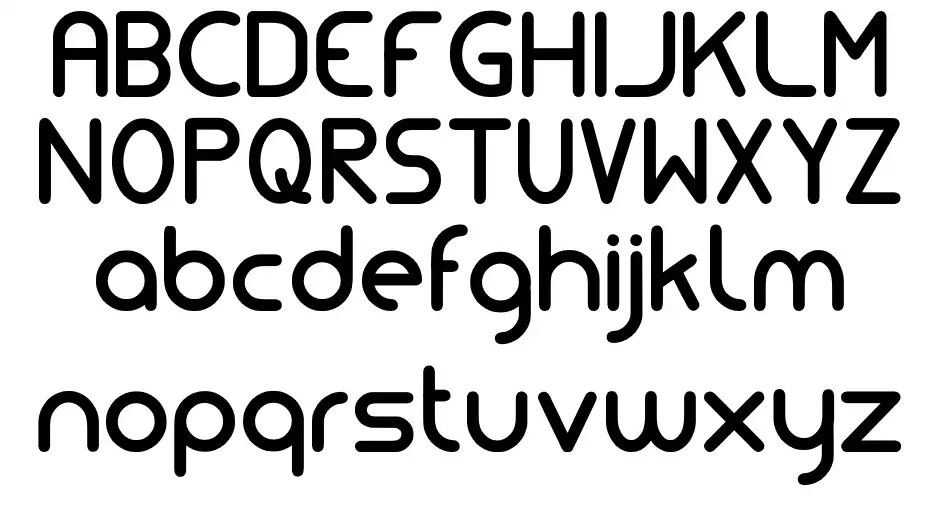
Review Of Simplest Fonts 2022. It is ideal for advertising luxury products or creating minimalist. The font is versatile and widely used for both display and body text.
Geneva Offers A Clean And Modern Look Due To Its Consistent Length, Width, And Spacing.
However, Some Standard Minimalist Fonts Often Used For Titles Include Arial, Quicksand, And Tahoma.
The Font Is Versatile And Widely Used For Both Display And Body Text.